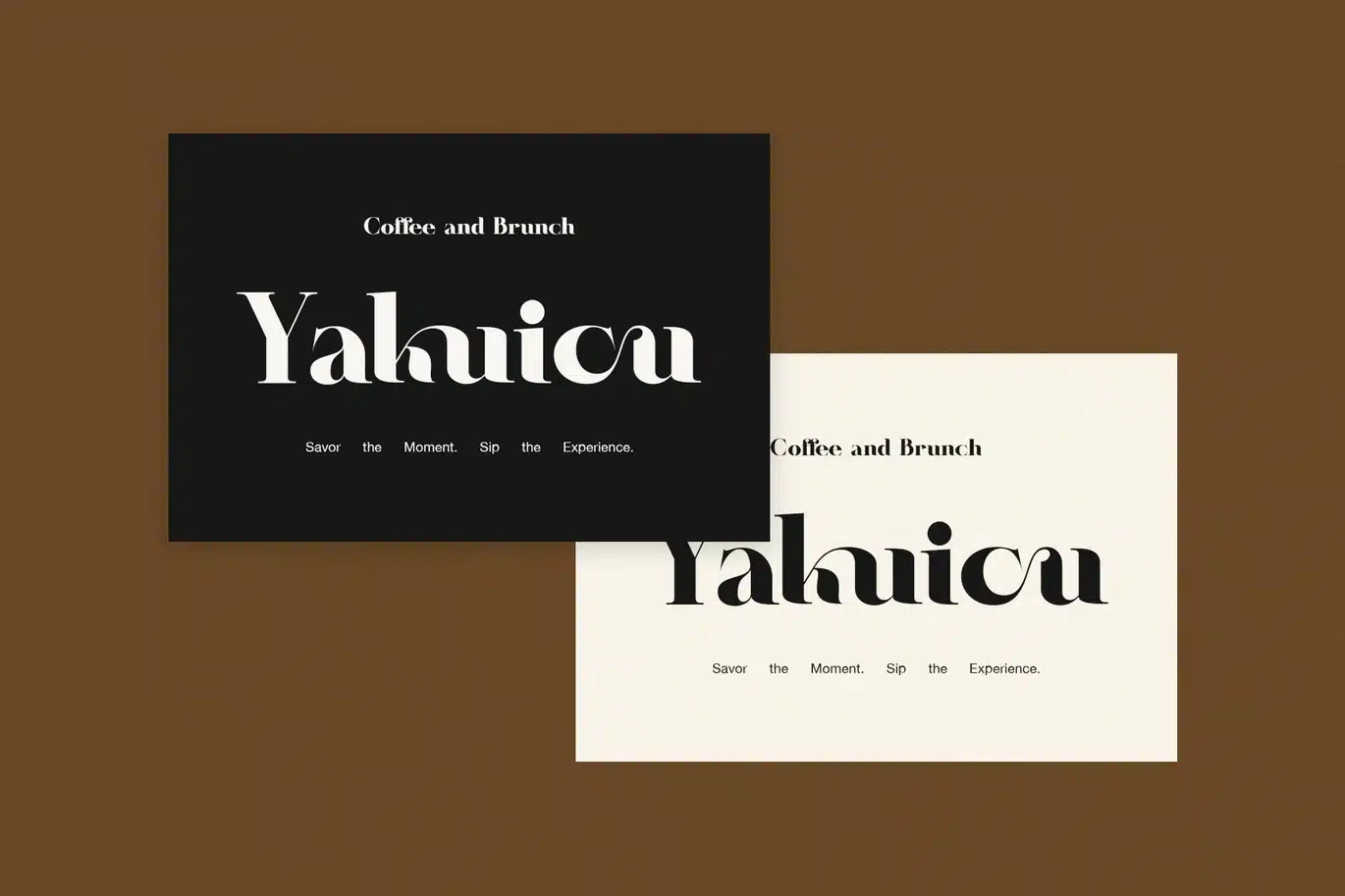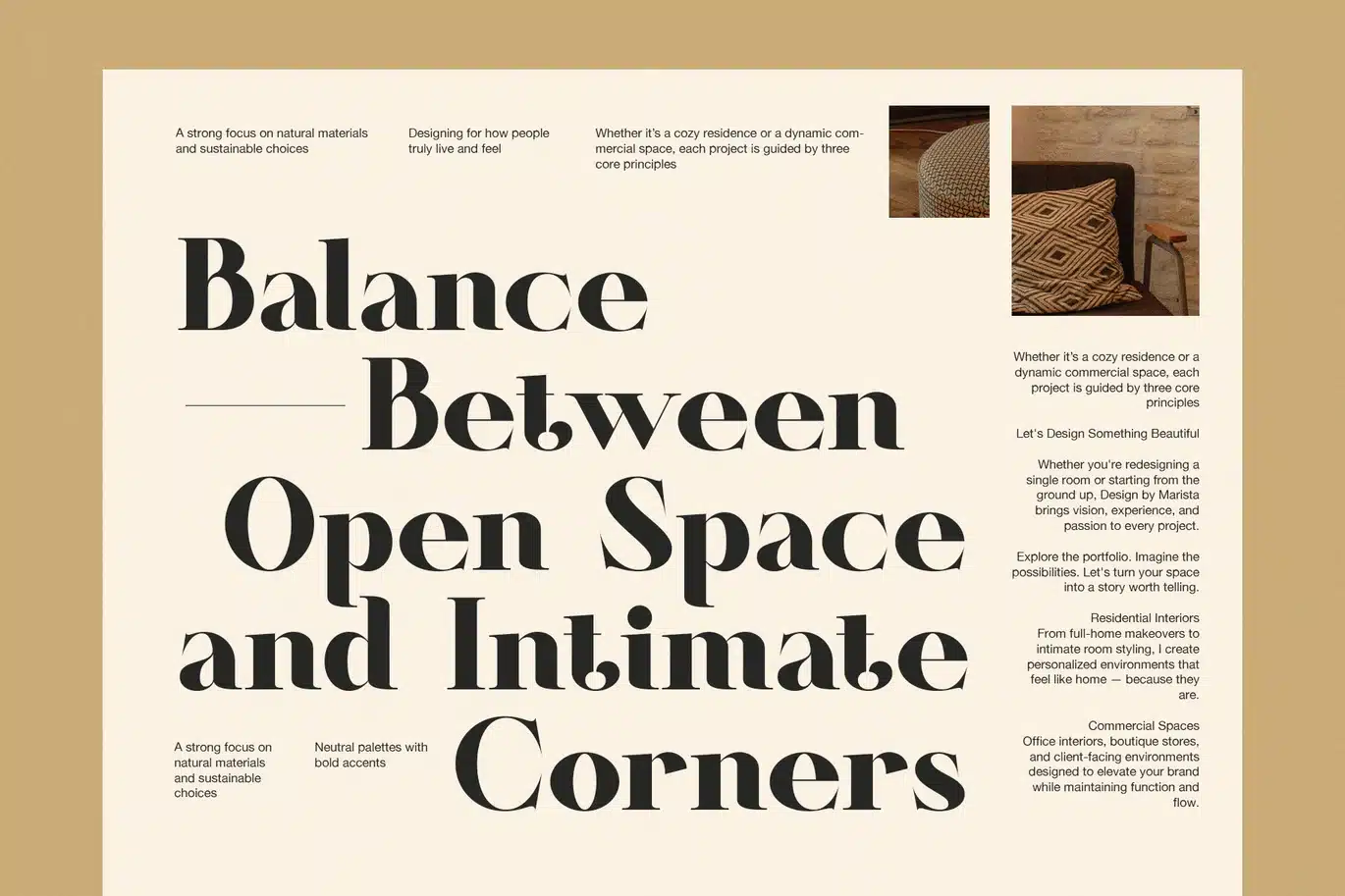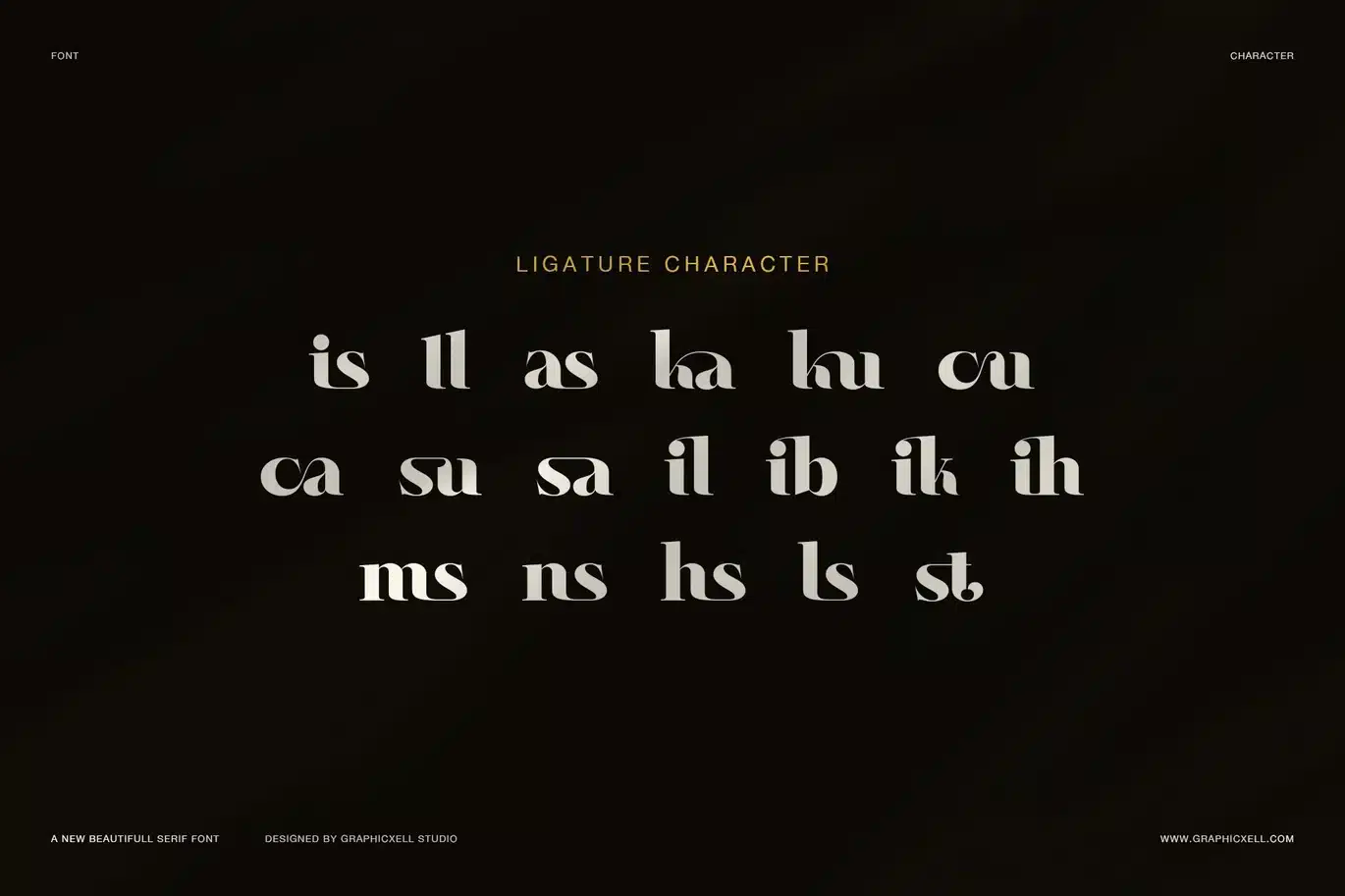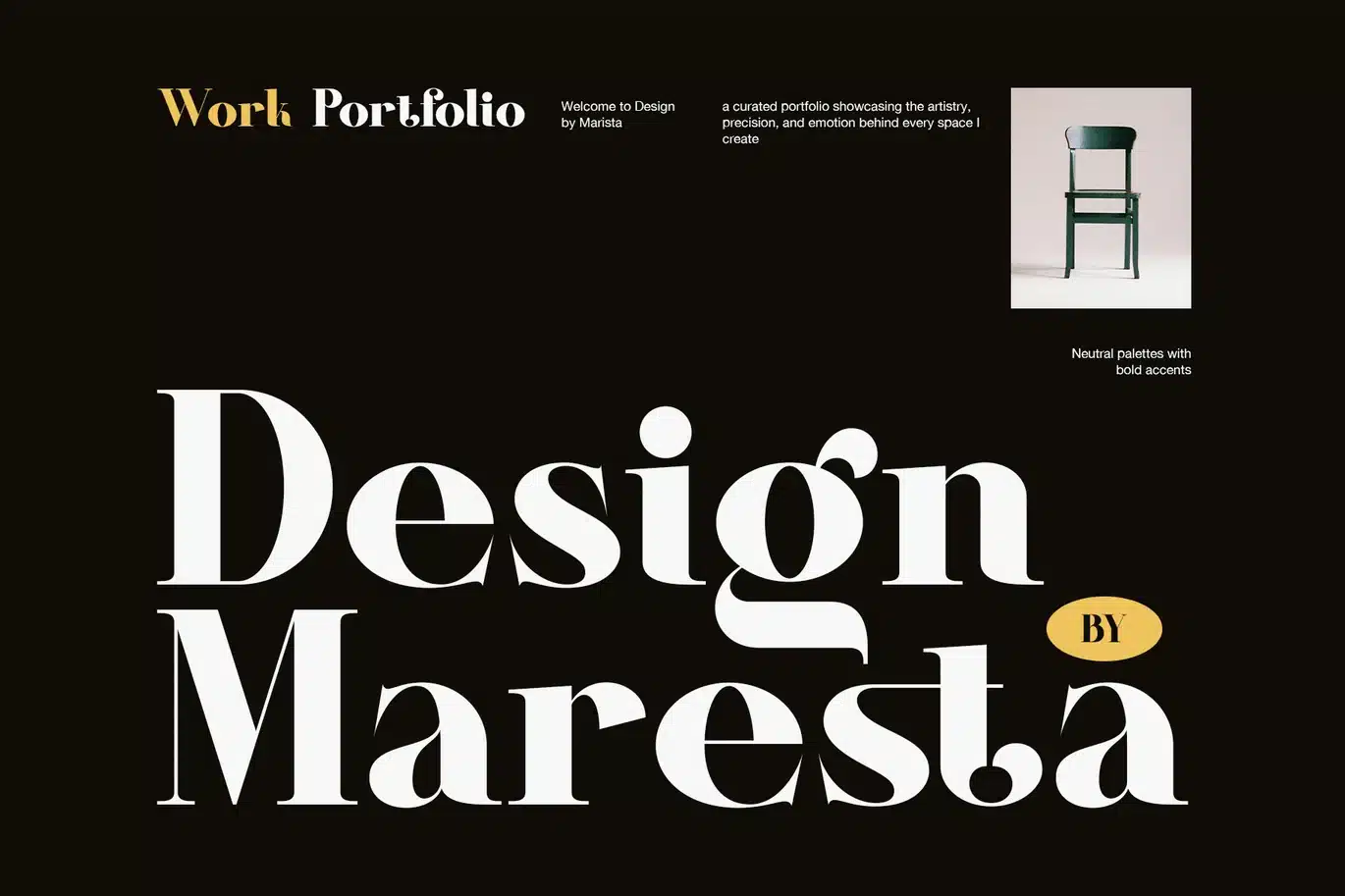
Relligo – Modern Elegant Serif Font
Relligo Elegant Serif Font is a clean and graceful serif typeface that blends modern style with timeless beauty. It was made for designers who want to create elegant and readable layouts. Because of its smooth curves and balanced lines, Relligo fits perfectly in branding, magazines, packaging, and wedding designs.
Every letter in Relligo has soft shapes and gentle contrast. The thin and thick strokes are balanced, making the text look clear and calm. In addition, the subtle serifs bring charm without being too bold. As a result, this font adds elegance to any design while keeping a natural, modern feel.
Relligo includes uppercase and lowercase letters, numbers, punctuation, alternates, and ligatures. It also supports multiple languages, so you can use it for many creative needs. Therefore, it works well for international projects or brands that value simple luxury.
You can use Relligo for:
Brand logos and visual identity
Elegant wedding invitations and stationery
Magazine titles and editorial layouts
Product labels and luxury packaging
Website headlines, banners, and quotes
Because of its simple rhythm and clean design, Relligo brings style without distraction. It helps every layout look balanced and professional. Moreover, it pairs beautifully with minimal designs or soft visuals. Its letters create a smooth flow that feels warm and confident.
In short, Relligo Elegant Serif Font turns simple words into elegant art. It’s timeless, refined, and easy to use. Whether you design for a brand, a magazine, or a special event, Relligo adds charm, clarity, and a lasting impression to your work.